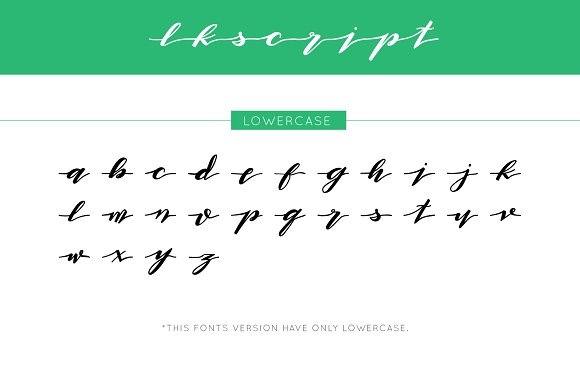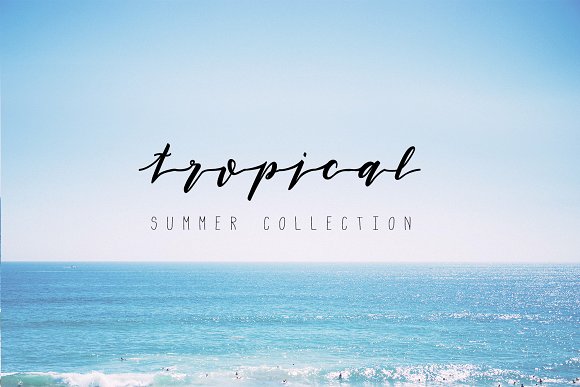
Laksamee Script Duo Font
Laksamee Script Font & BEERRegular Font Two fresh handmade calligraphy font. Design for logo or create unique design product, blog, magazine and more your creative design.